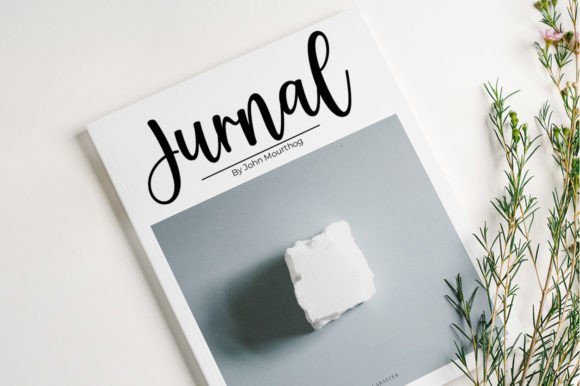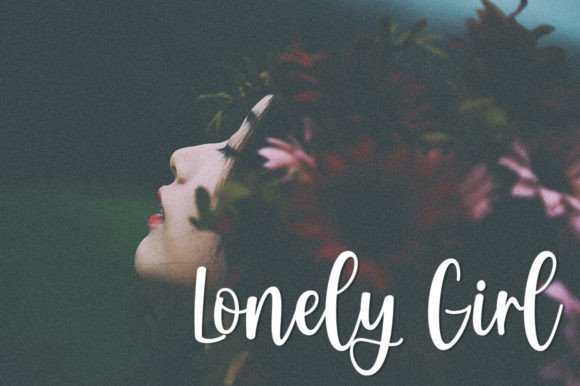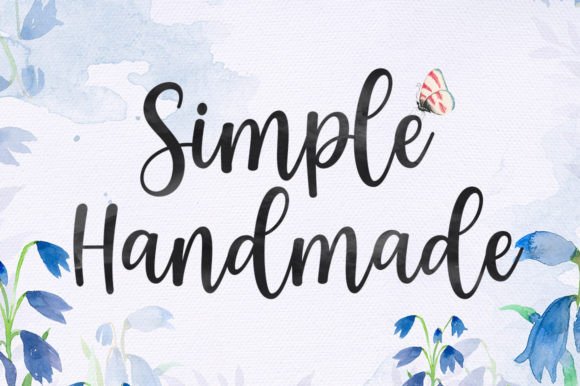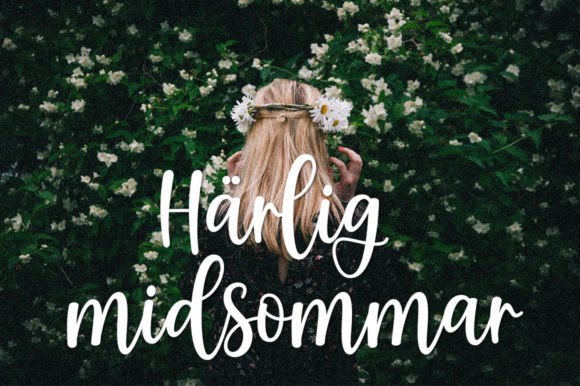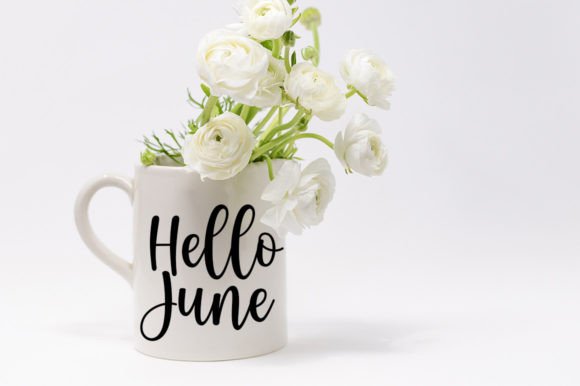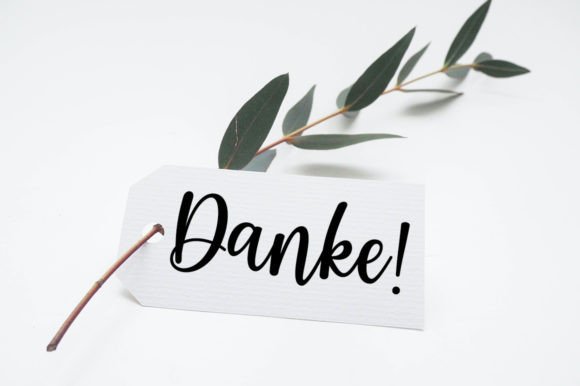
Guten Morgen Font: Elevate Your Designs with Elegant Calligraphy
Are you a designer or crafter looking for a font that exudes elegance and sophistication? Look no further than the Guten Morgen Font, a modern calligraphy design that is sure to elevate your designs. In this article, we’ll dive into the features and benefits of this beautiful font, and explore its various uses in the world of design.
What is Guten Morgen Font?
Guten Morgen Script is a modern calligraphy design that features a regular style with beautiful swashes. The font is casual, yet elegant, making it perfect for a wide range of design applications. The name “Guten Morgen” is German for “good morning,” which reflects the font’s friendly and approachable vibe.
Key Features of Guten Morgen Font
- Modern Calligraphy Design: Guten Morgen Font boasts a modern calligraphy design that is both stylish and sophisticated.
- Regular Style with Swashes: The font features a regular style with beautiful swashes that add a touch of elegance to any design.
- Casual yet Elegant: The font’s casual yet elegant design makes it perfect for a wide range of applications, from logos and branding to wedding invitations and product packaging.
Uses of Guten Morgen Font
Guten Morgen Font is a versatile font that can be used for various purposes, including:
- Product Packaging: Add a touch of elegance to your product packaging and make your products stand out on store shelves.
- Wedding Invitations: Create beautiful and unique wedding invitations that reflect the couple’s style and personality.
- Signage and Labels: Use Guten Morgen Font to create eye-catching signage and labels that grab attention and communicate your message effectively.
- Book Covers and Posters: Add a touch of sophistication to your book covers and posters with this elegant font.
- Quotes and Typography: Use Guten Morgen Font to create inspiring quotes and typography that showcase your creativity and style.
Benefits of Using Guten Morgen Font
Using Guten Morgen Font in your designs offers several benefits, including:
- Unique and Creative Designs: The font’s elegant design and swashes enable you to create unique and creative designs that stand out from the crowd.
- Time-Saving: With Guten Morgen Font, you can create professional-looking designs in no time, saving you time and effort.
- Versatility: The font’s versatility makes it suitable for a wide range of design applications, from logos and branding to wedding invitations and product packaging.
Tips for Using Guten Morgen Font
To get the most out of Guten Morgen Font, here are some tips to keep in mind:
- Experiment with Swashes: The font’s swashes are a key feature that can add elegance and sophistication to your designs. Experiment with different swash styles to find the one that works best for your design.
- Pair with Other Fonts: Guten Morgen Font pairs well with other fonts, so don’t be afraid to experiment with different font combinations to create a unique look.
- Use for Headlines and Titles: The font’s elegant design makes it perfect for headlines and titles. Use it to create eye-catching headings that grab attention.
In conclusion, Guten Morgen Font is a beautiful and elegant calligraphy design that is perfect for designers and crafters looking to elevate their designs. With its modern design, swashes, and versatility, this font is suitable for a wide range of applications, from logos and branding to wedding invitations and product packaging. Whether you’re a seasoned designer or just starting out, Guten Morgen Font is a great addition to your font library.